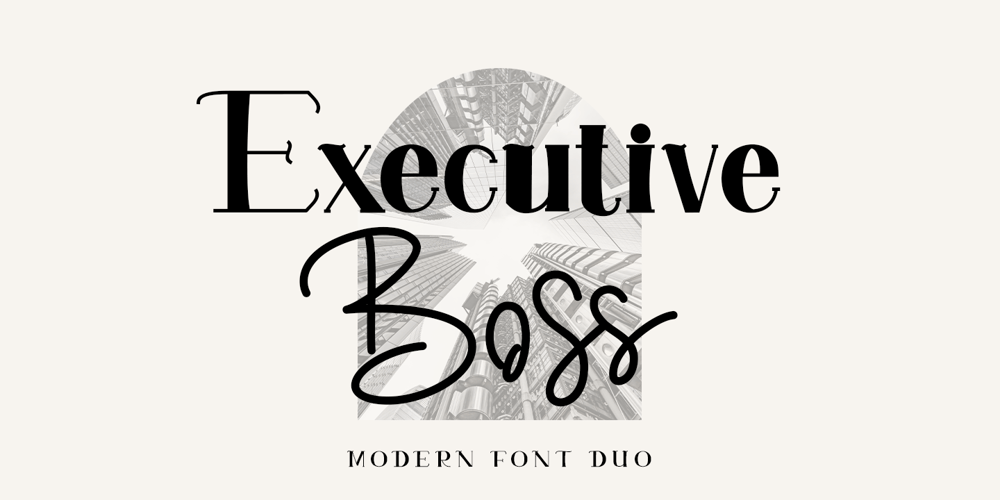
Executive Boss Font Family was designed by Thomas Aradea and published by Letterara. Executive Boss contains 4 styles and family package options. Executive Boss is a cool and versatile duo font (serif and script). The beautiful signature monoline-style font perfectly complements the elegant serif font. Combining these two fonts in your next design will give a modern and sophisticated feel, and it makes it a perfect addition to your font collection. Fall for its ravishing style and use it to create gorgeous wedding invitations, beautiful stationary art, eye-catching social media posts, logos, packaging, advertising, and much more!This font is PUA encoded which means you can access all the glyphs and swashes easily!